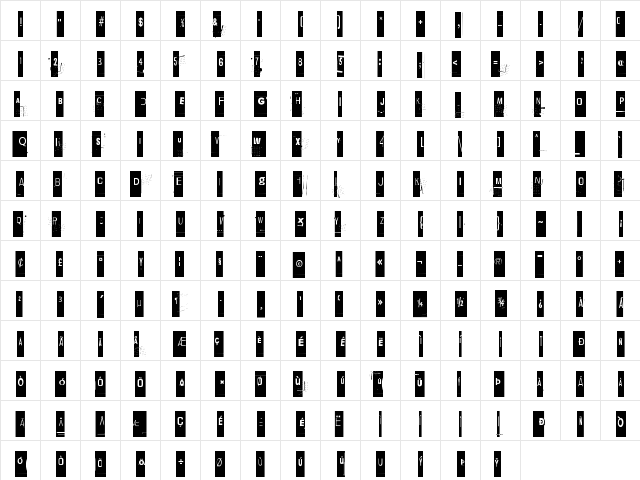
Lievidence TNY Regular
| Designer | junkohanhero |
Design Context for Lievidence TNY Typeface
Lievidence TNY is a composed and adaptable typeface that performs quietly and consistently across a wide range of design contexts.